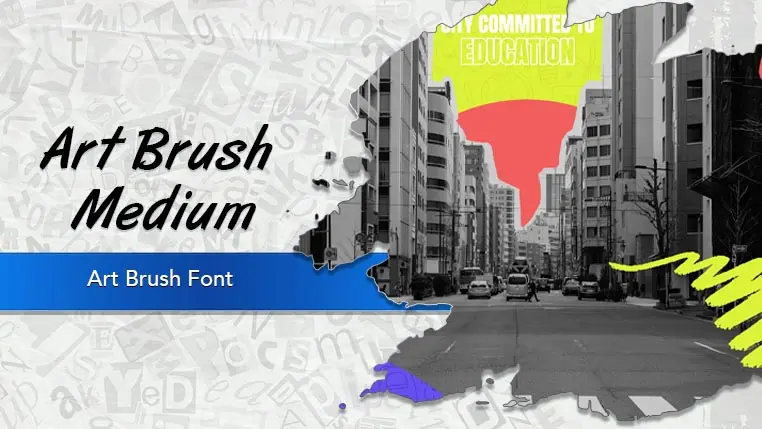
The Art Brush font family may be ideal for you if you enjoy working on an artistic design project. The lively, expressive look of this typeface, which was created by Gary D. Jessey, makes it ideal for T-shirt Design and Apparel, Social Media Graphics and Grunge or Urban Designs. Also Its strong visual presence and unique texture ensure it stands out in headlines for posters, flyers, album covers, advertisements, and website banners where you want to make an impactful and distinctive statement. Its bold and expressive nature stands out effectively on social media platforms, ideal for quotes, announcements, event promotions, or visually driven content that needs a unique edge. and other light-hearted visual projects.
Medium are the one primary font styles of the Art Brush font family. You may build dynamic, visually appealing text layouts with the distinct flair that each style offers. With crisp, readable lines and a relaxed tone.